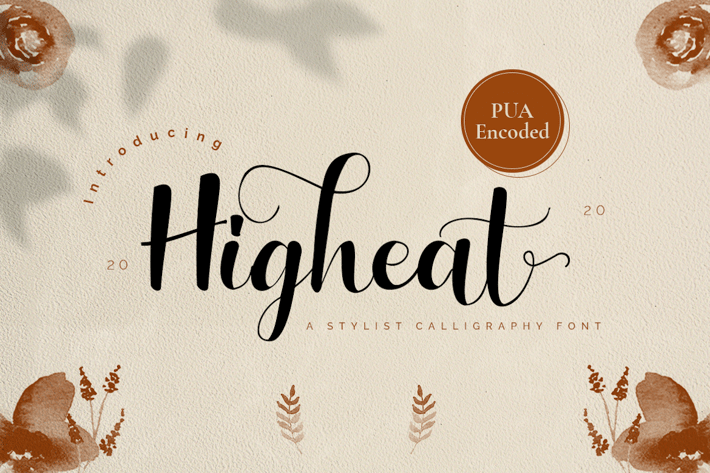
Highheat - Stylish Calligraphy Font
Higheat Stylish Calligraphy
Higheat Stylish Calligraphy script is perfect font pairing with tails alternates character.
Higheat Stylish Calligraphy script is a modern hand lettering script. It's allowing you to create beautiful hand-made typography
+ Multilingual Support
+ with Regular style
+ with Swash
ïPUA Encoded Characters